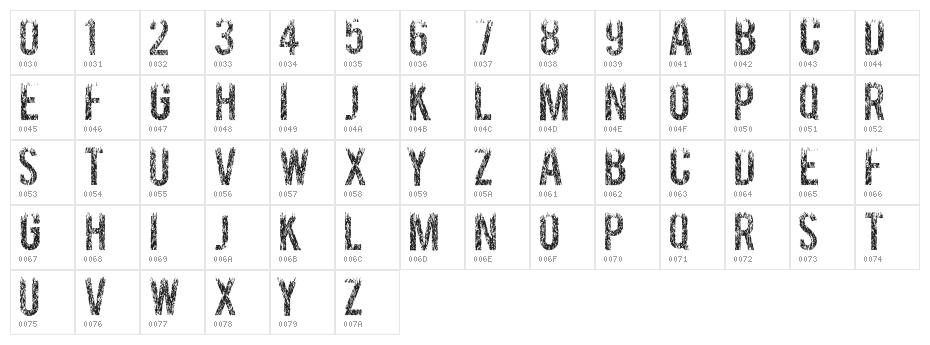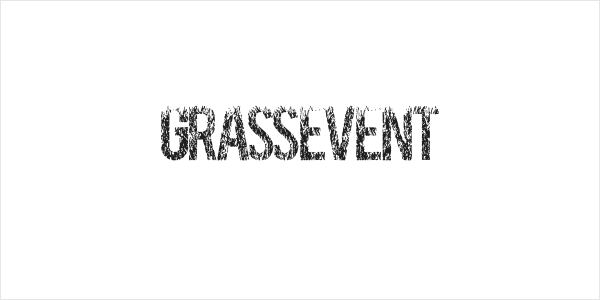
GRASSEVENT Font
This font features a unique, distressed texture that gives it a rugged, organic appearance. Each character appears as if it has been overgrown with grass or foliage, creating a natural and earthy aesthetic. The uppercase and lowercase letters maintain a consistent style, with the texture adding a dynamic and lively element to the overall design. The numbers and special characters are equally detailed, ensuring a cohesive look across all elements. This font is ideal for projects that require a rustic or nature-inspired theme, offering a bold and eye-catching visual impact.
Proposed ProjectsIdeal for eco-friendly branding, outdoor event posters, nature-themed packaging, and rustic wedding invitations.